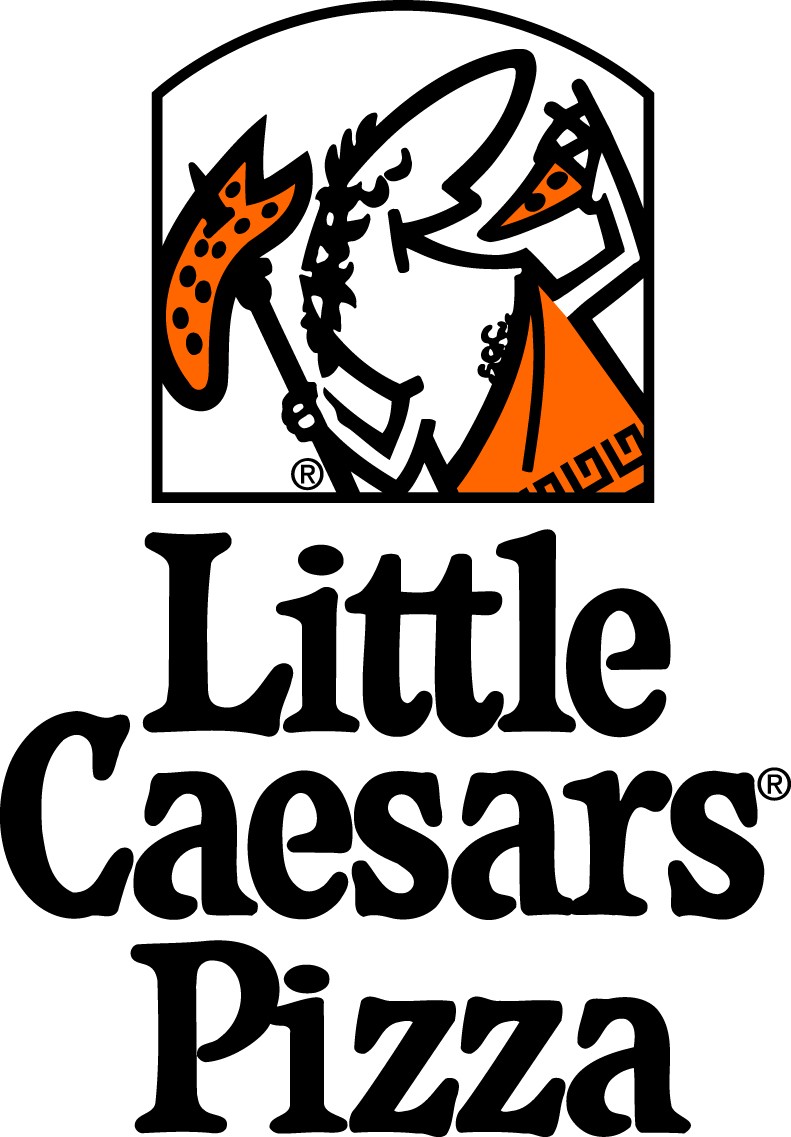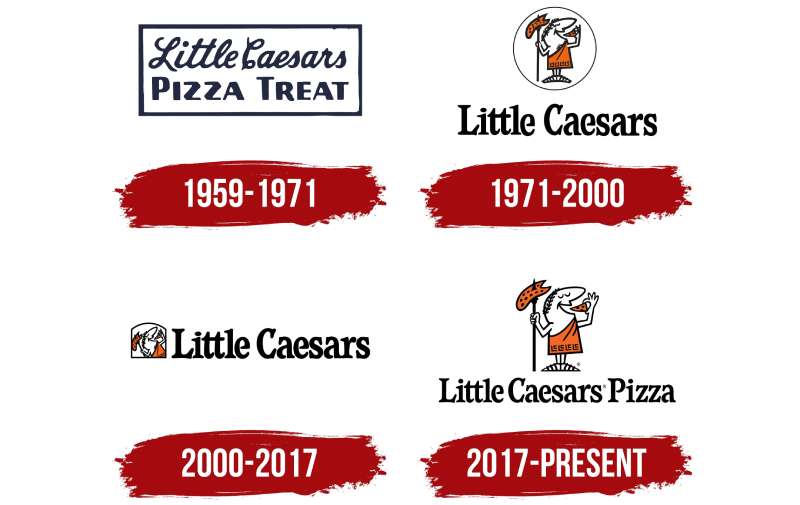
Little Caesars Font
Little Caesars Font - Download free little caesars fonts to use in your projects. This font features bold, playful characters with a whimsical and slightly irregular. Create something unique with a variety of typefaces to choose from. ️ this font has been downloaded 4,000+ times. Download and install the little caesar font for free from ffonts.net.